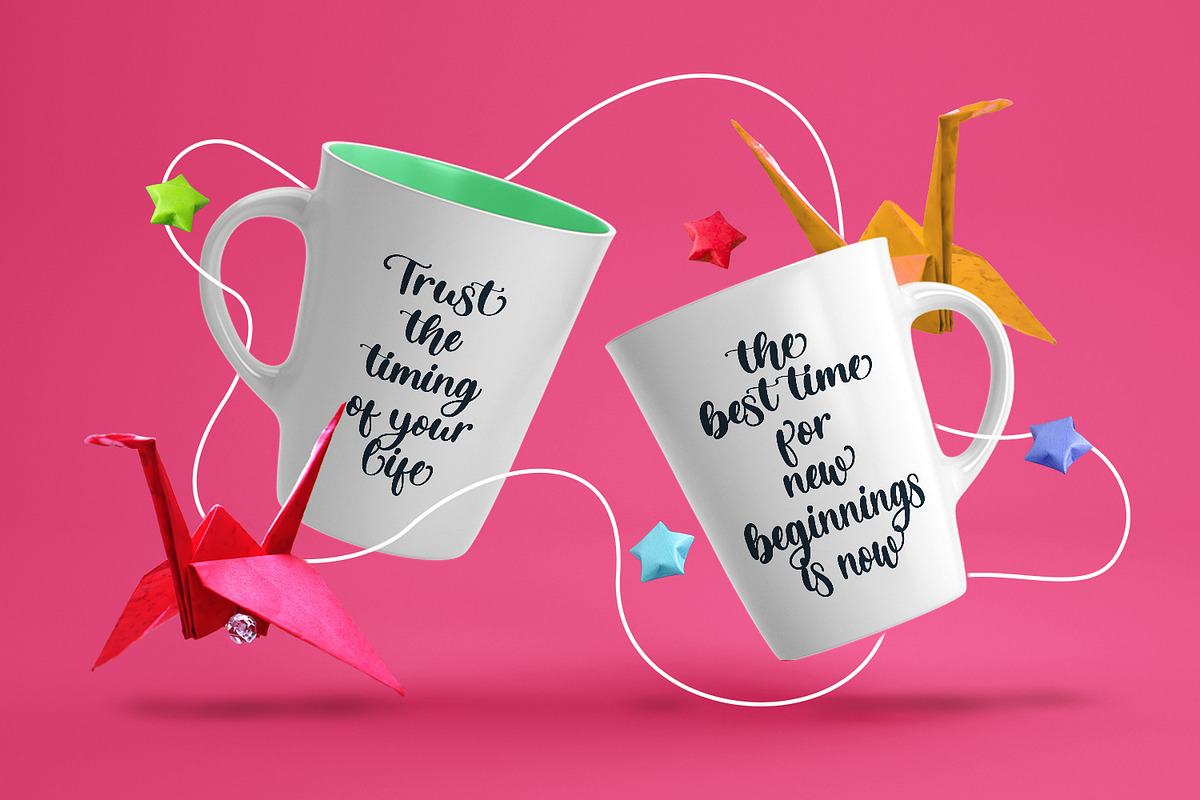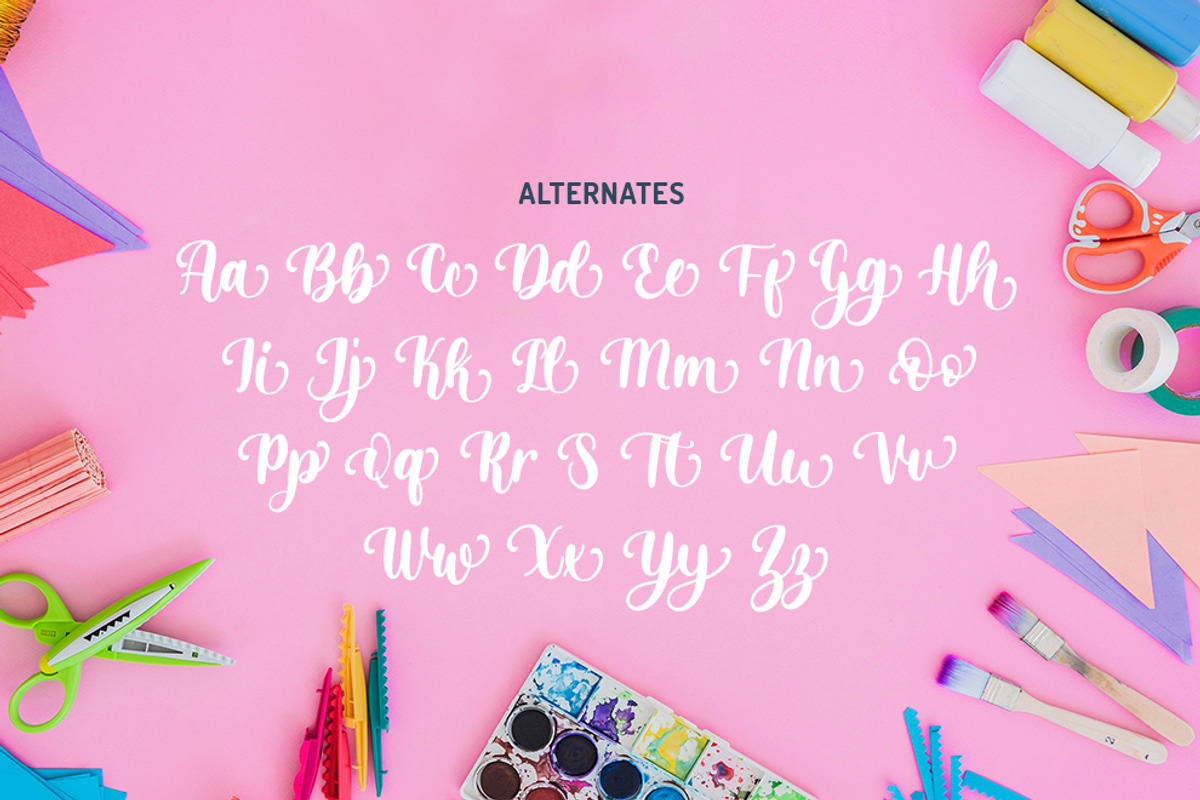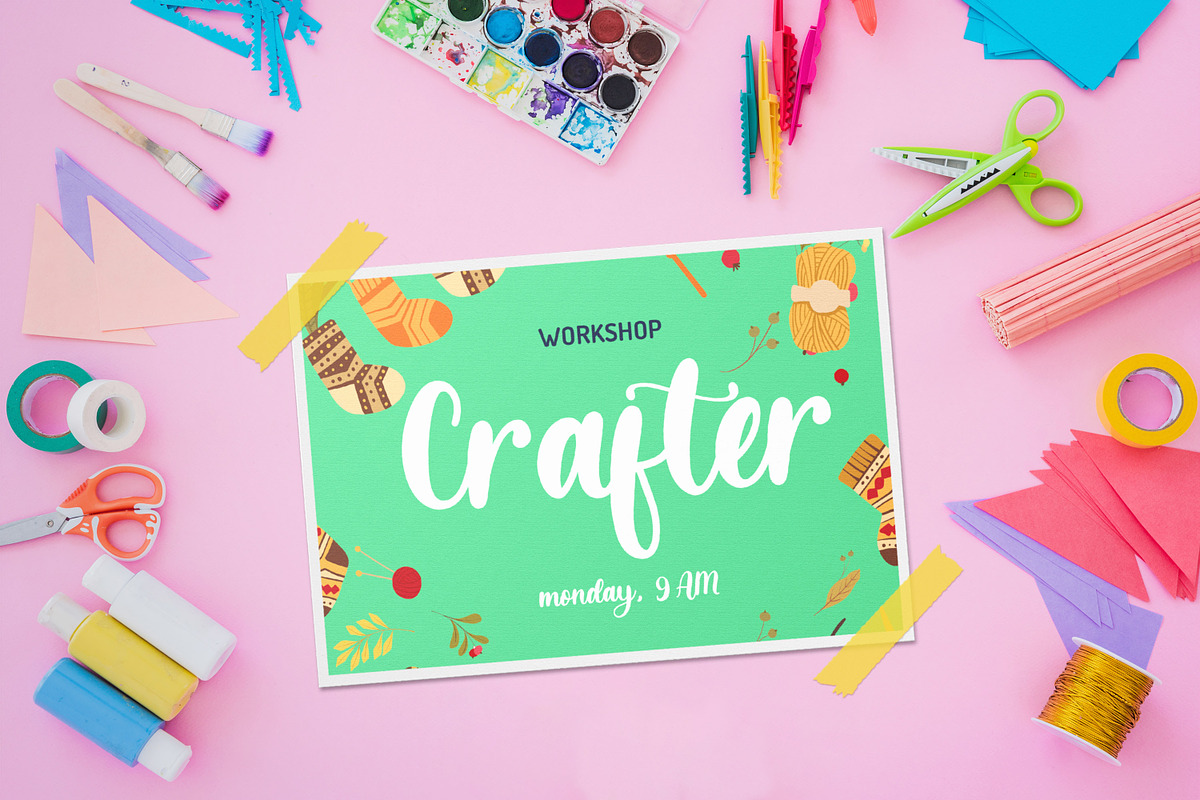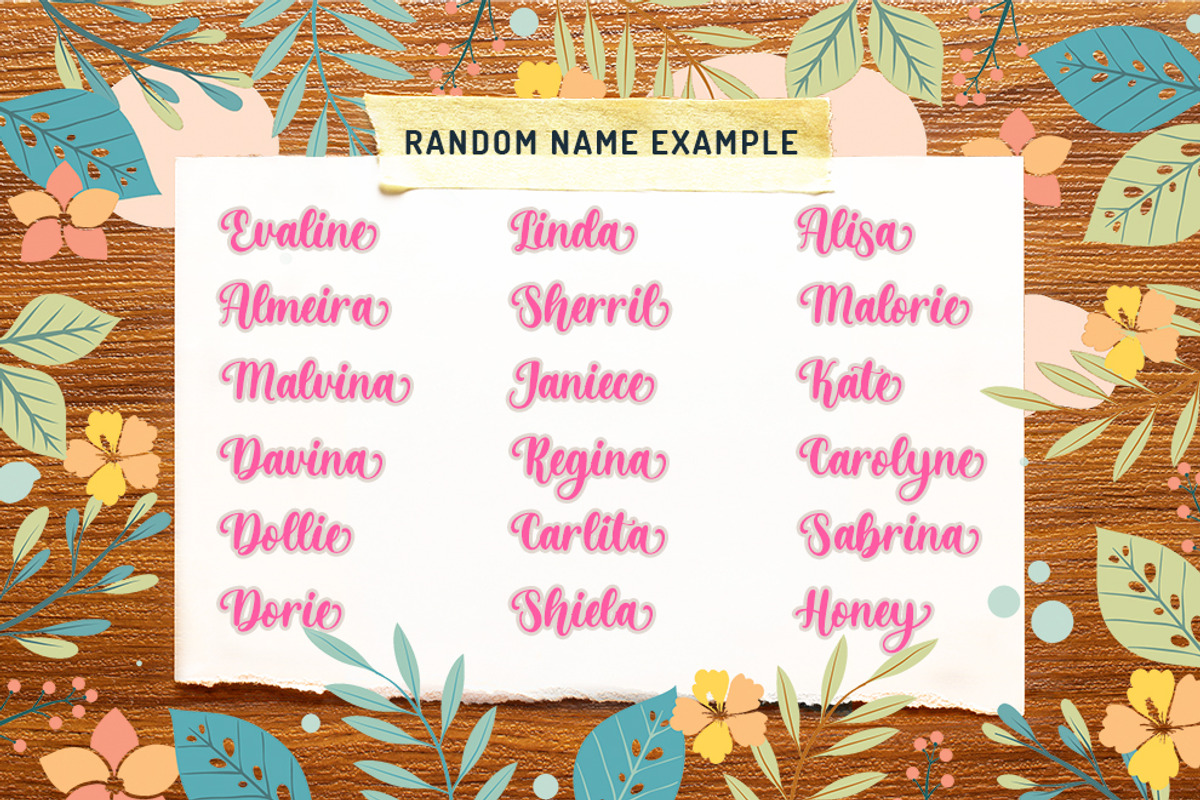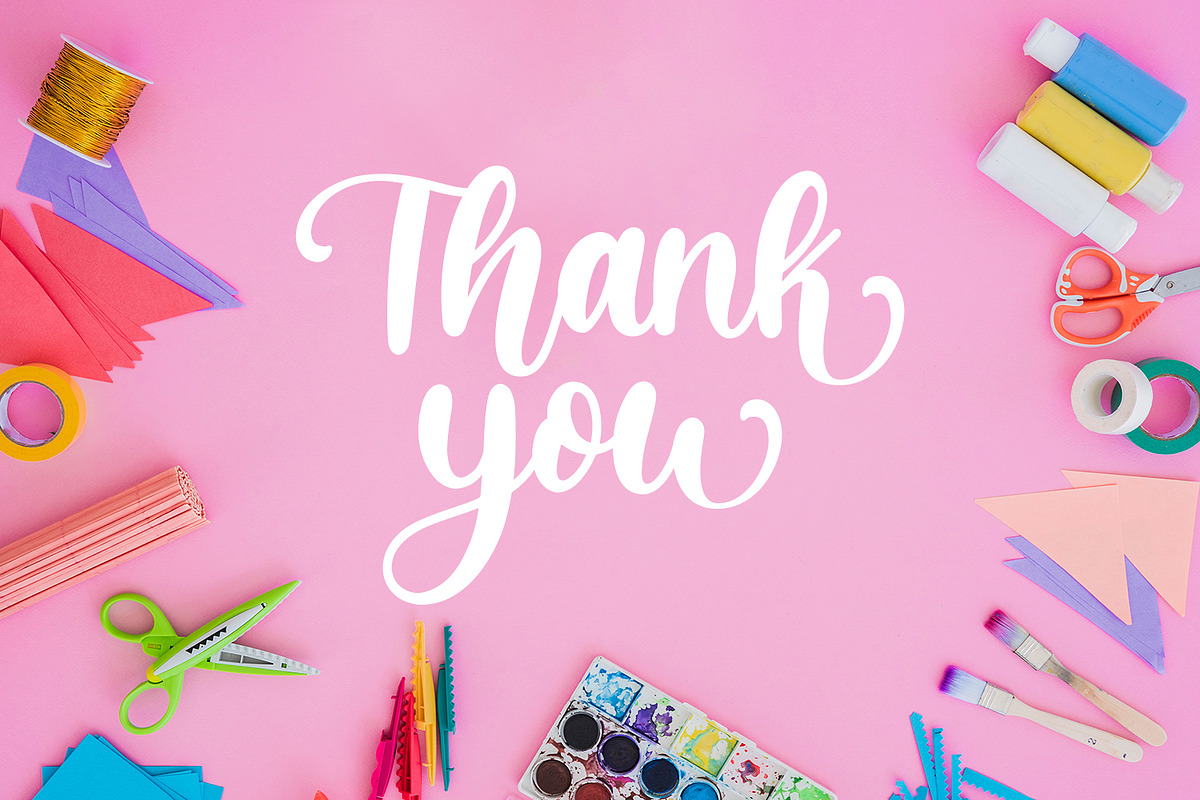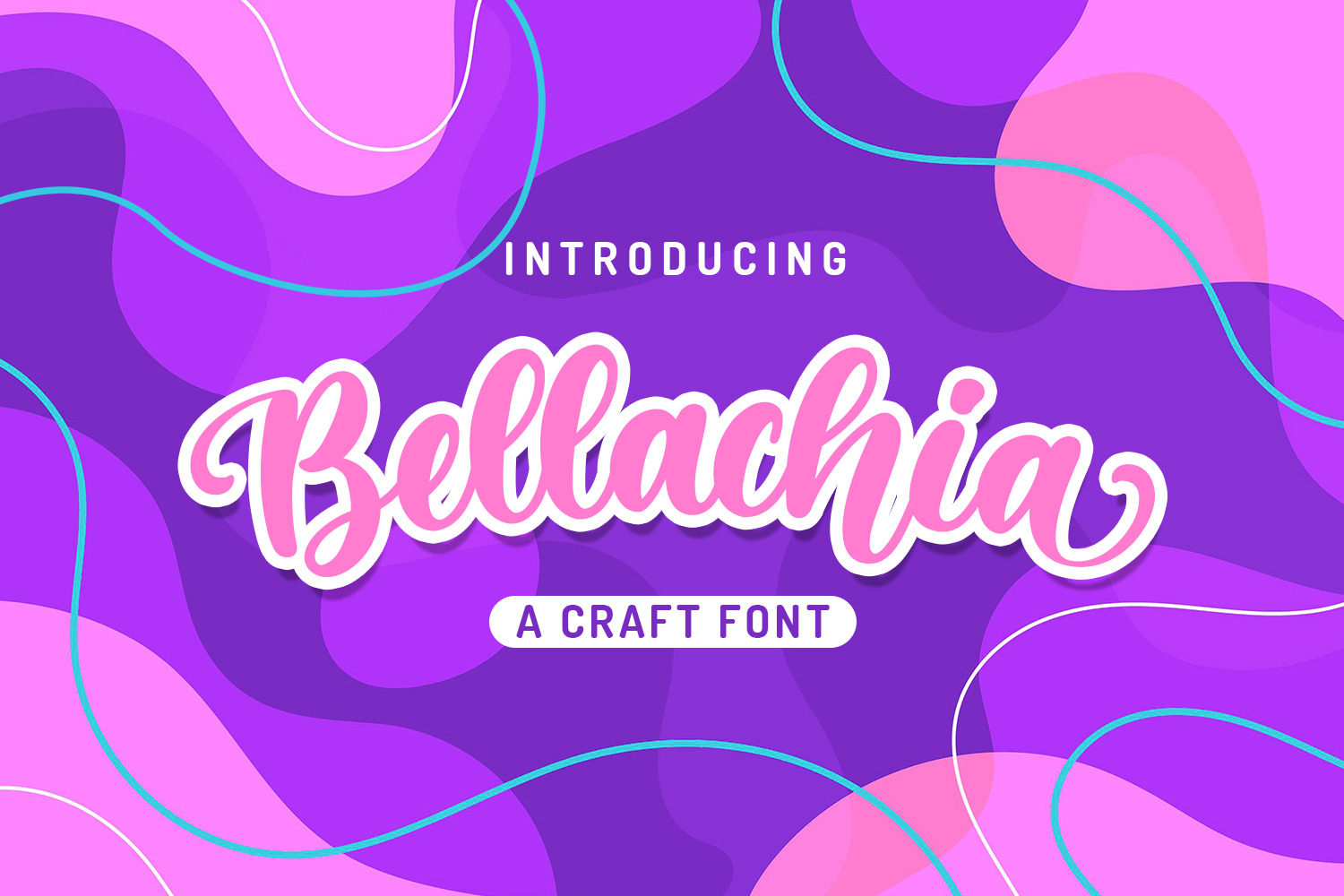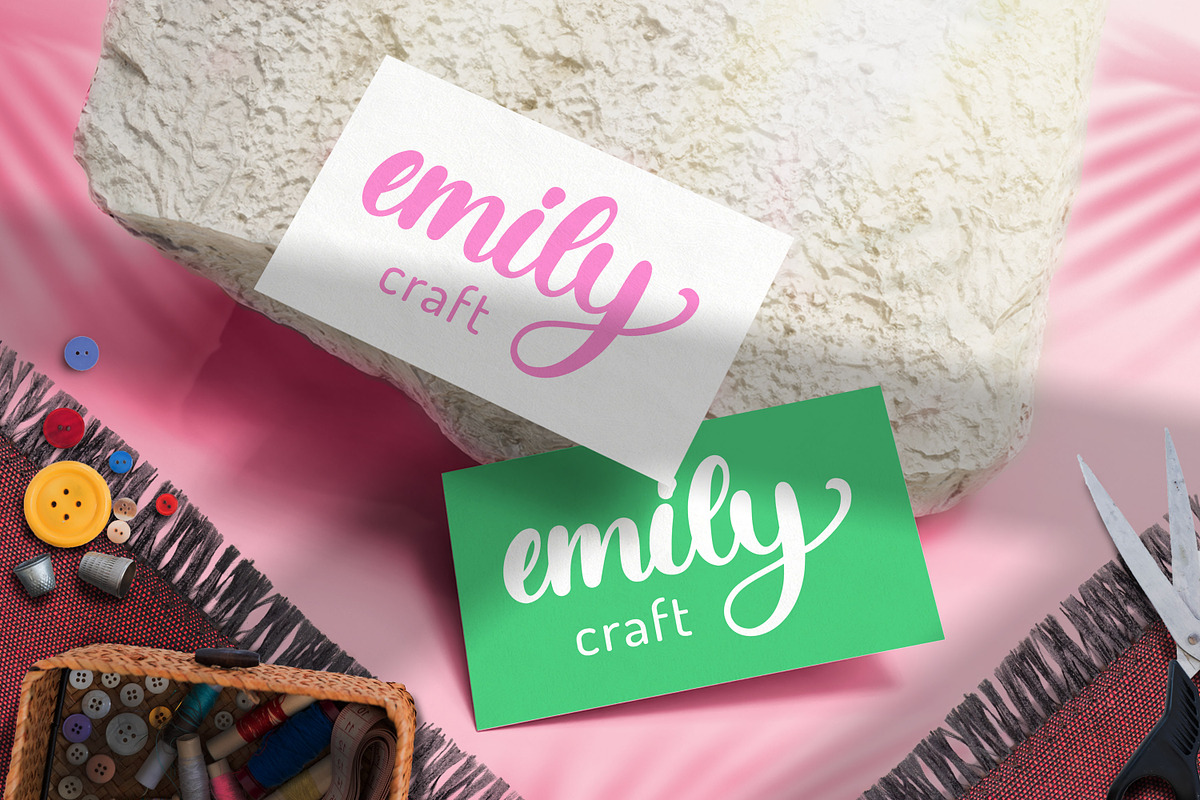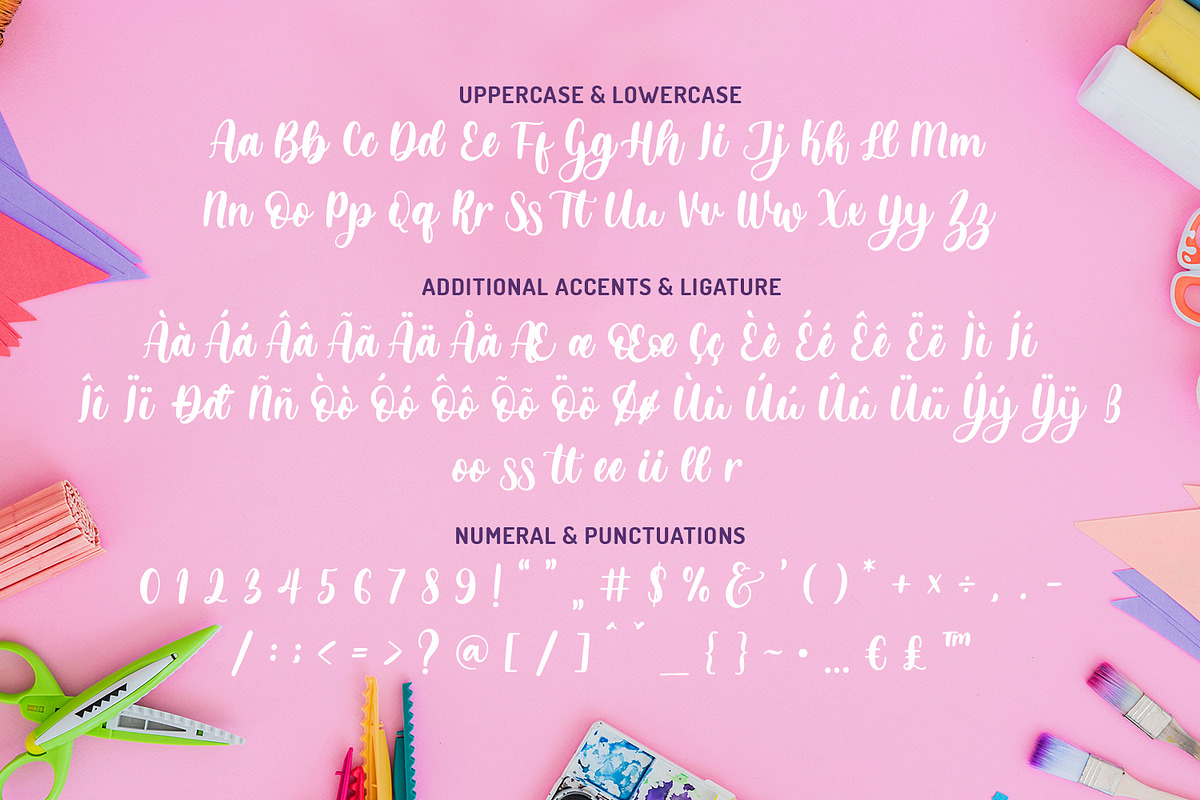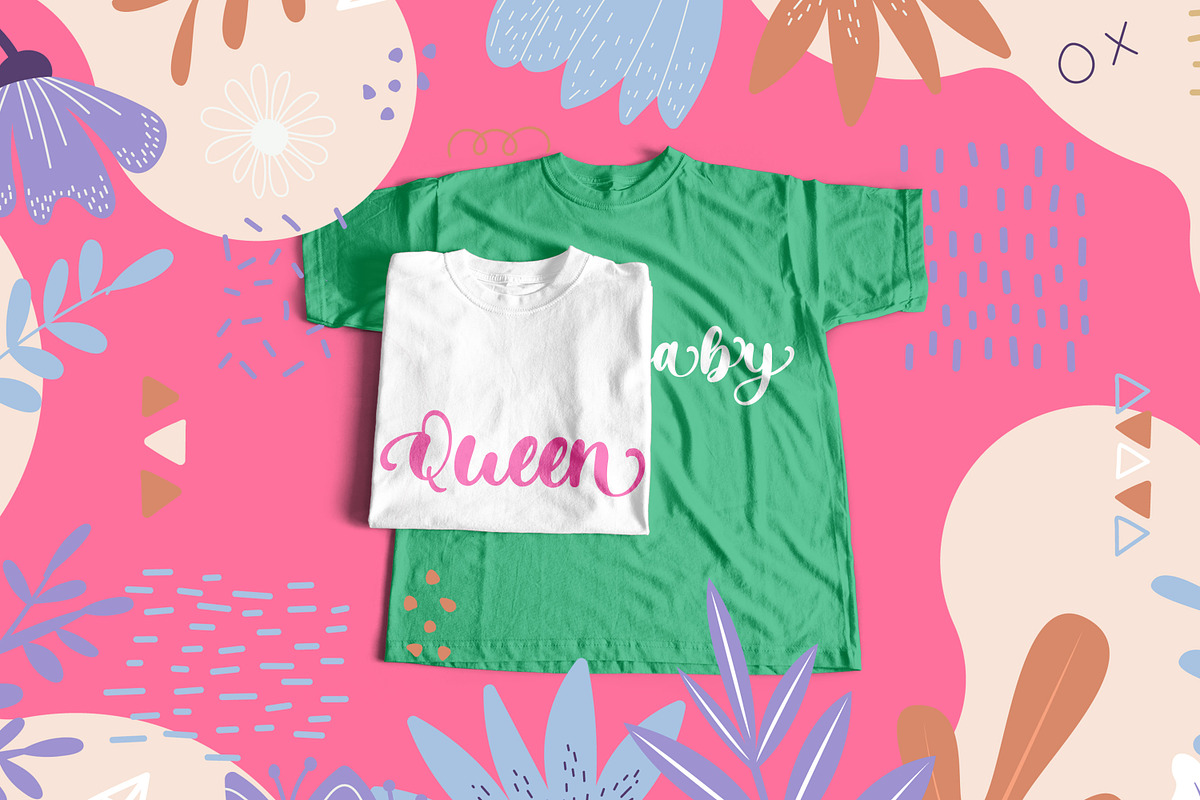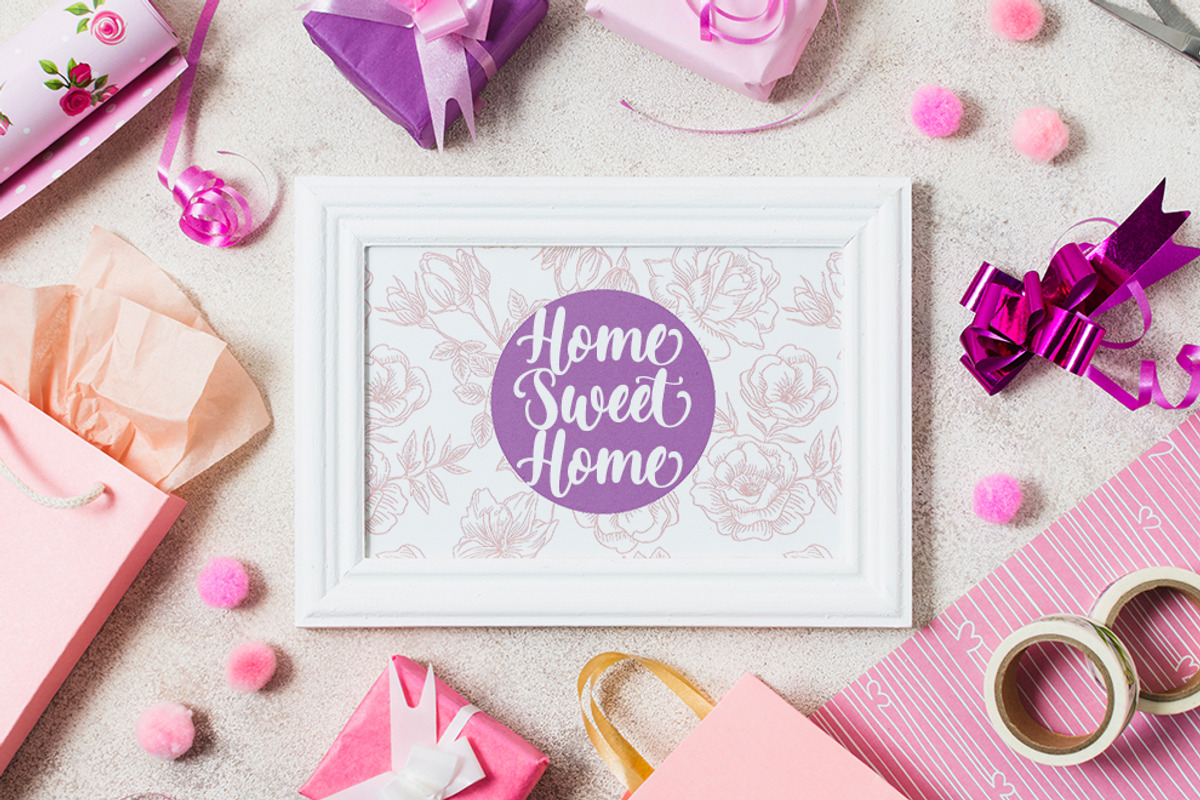
Bellachia - A Craft Font
Bellachia font with a natural Script feel , perfect for any creative design. This handmade font will make your design has a beautiful natural touch for each details. It is perfect for any design project as Invitation,logo, book cover, craft or any design purposes. This font is PUA encoded which means you can access all of the magical glyphs and swashes with ease! It also features a wealth of special features including alternate glyphs and ligatures.